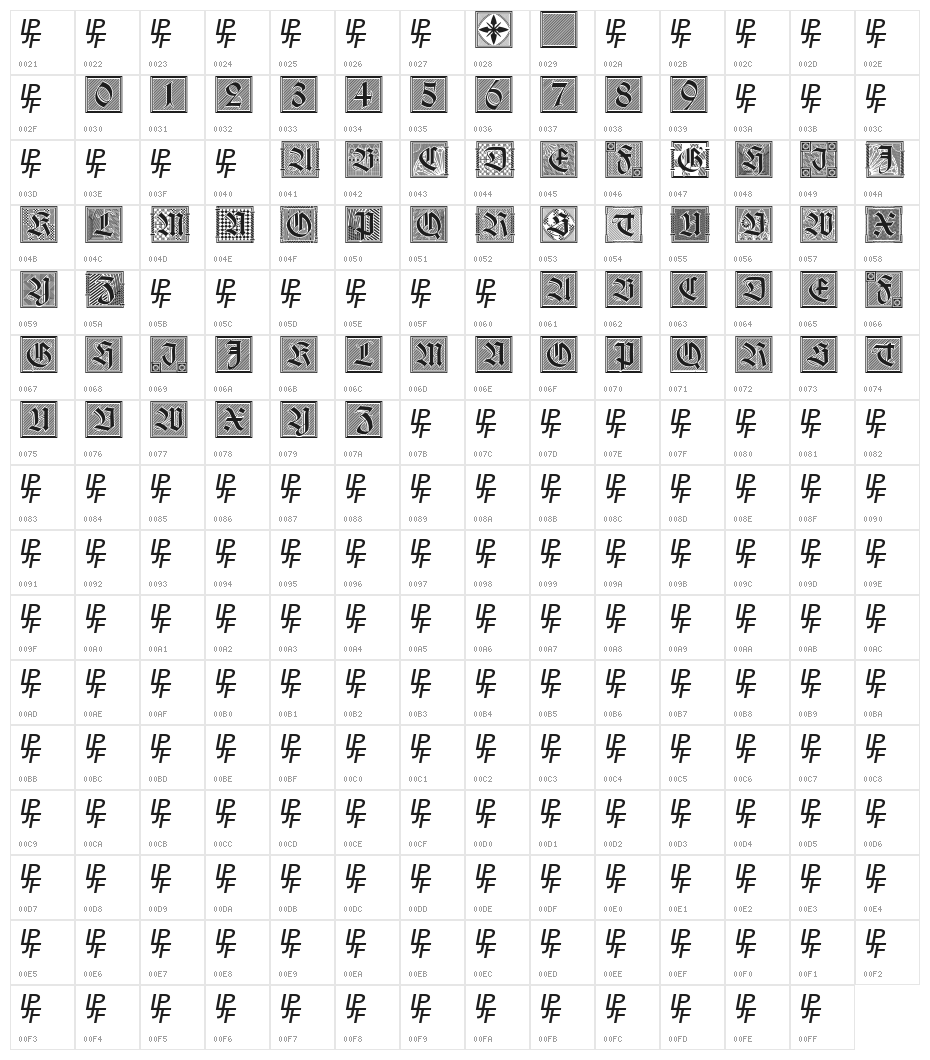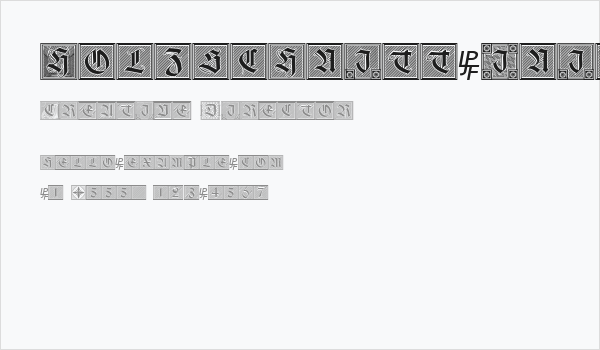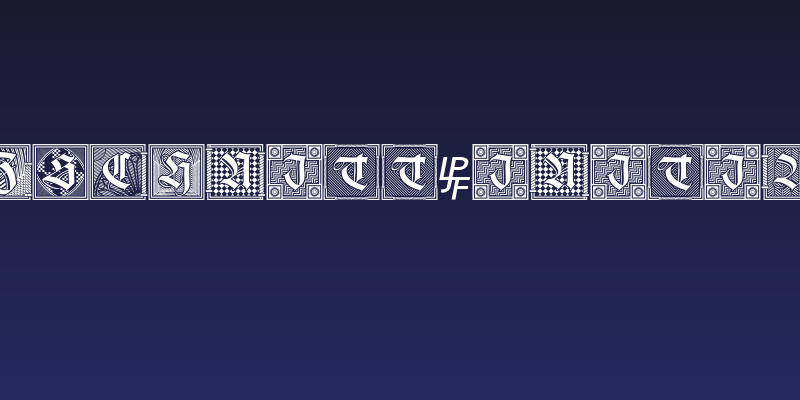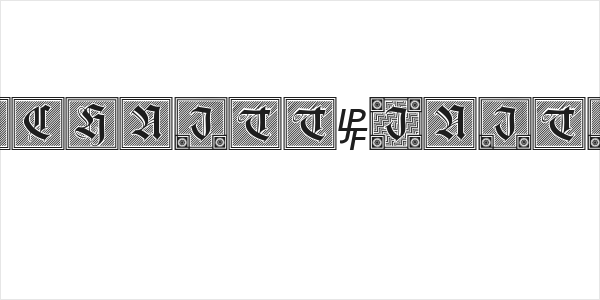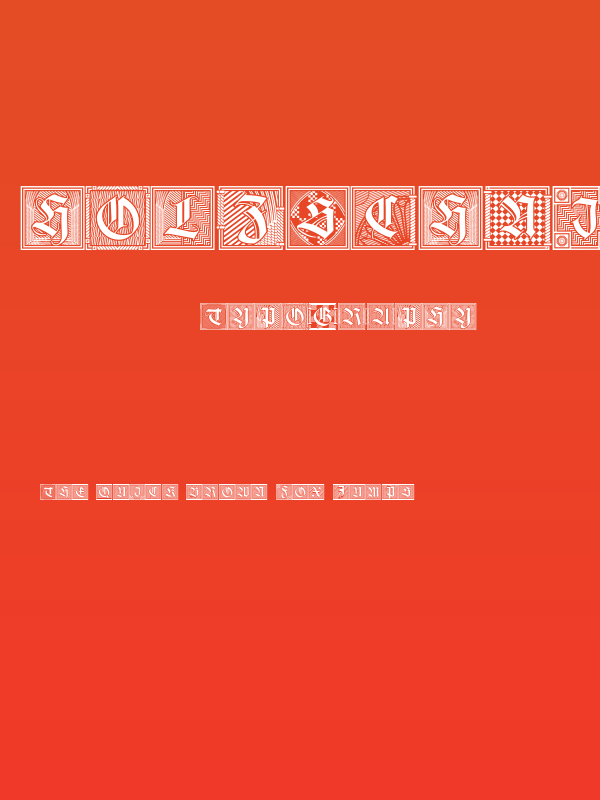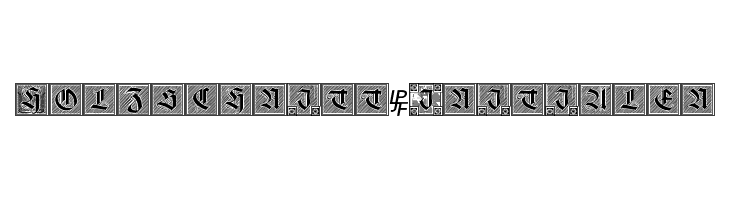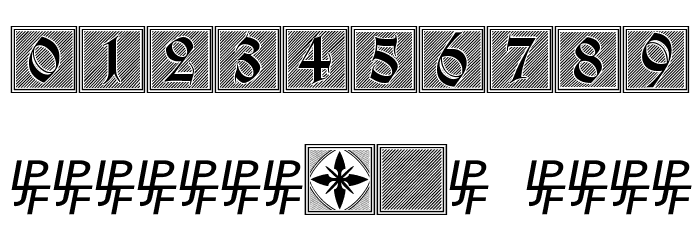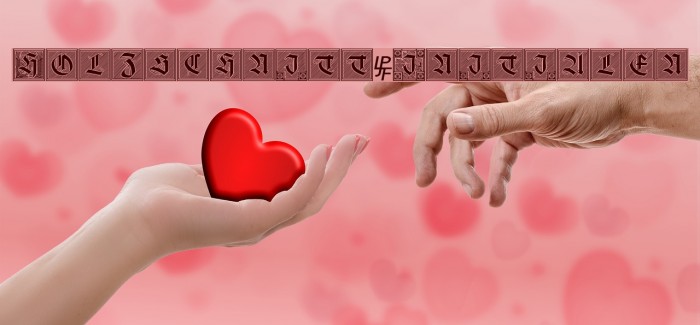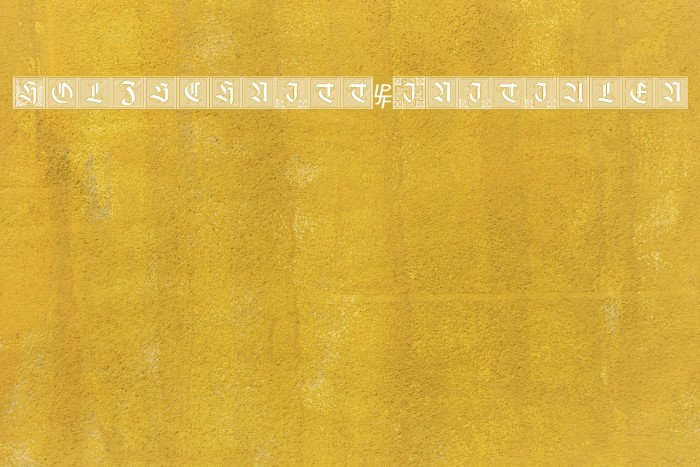
Holzschnitt-Initialen Font
Holzschnitt-Initialen Description
This font features a highly decorative and intricate design, reminiscent of traditional woodcut initials. Each character is enclosed within a square, showcasing elaborate patterns and textures that give it a distinct, historical feel. The uppercase letters are bold and ornate, with intricate details that suggest a handcrafted quality. The lowercase letters maintain the same level of detail, ensuring consistency throughout the font. Numbers and special characters are also included, each with unique embellishments that match the overall aesthetic. This font is ideal for projects that require a vintage or classical touch, such as invitations, posters, or book covers.
| Proposed Projects | Ideal for vintage-themed designs, book covers, invitations, and decorative posters. |